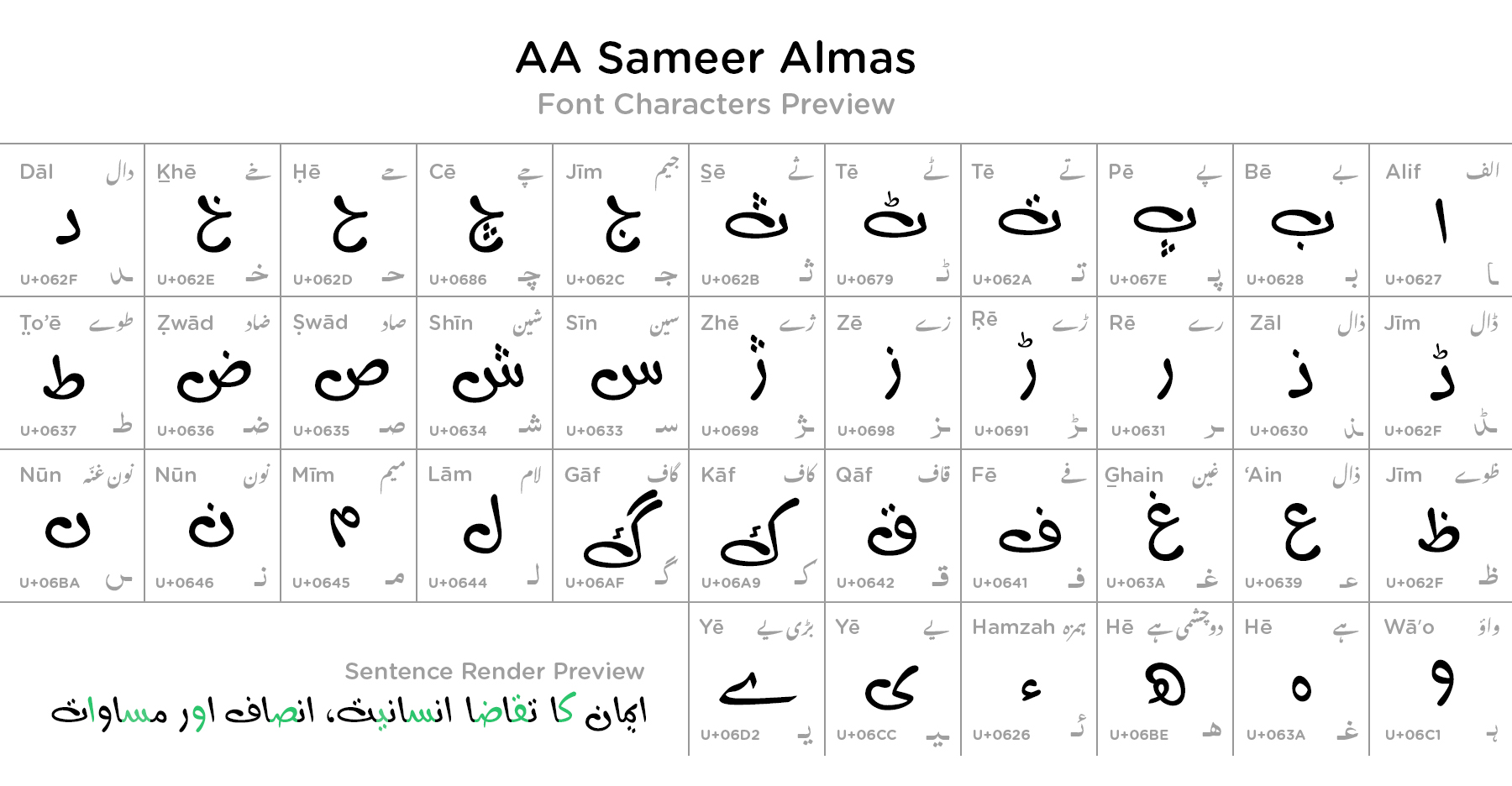
AA Sameer Almas is a bold and free-style Urdu font that captures the essence of handwritten expression. Inspired by the Divani script, it has irregular letterforms with thick, soft strokes and flowing terminals. Developed as part of the Sameer Almas font family, it has become a preferred style for Urdu writing, particularly in Pakistan and among Urdu writers worldwide. With 219 characters and 431 glyphs, the font offers language support for Arabic, Latin, and Urdu, making it versatile for various design projects. Its thick and strong strokes give it a bold presence, while the irregular appearance, untidy letterforms, and uneven spacing create a unique and handcrafted feel.